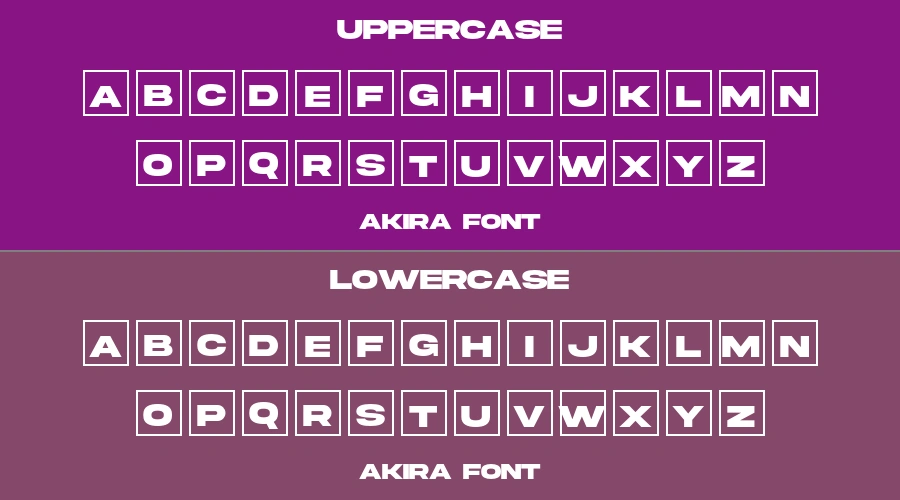
About Akira Font
Akira Font stands out for its distinctive combination of architectural precision and originality. Ideal for wayfinding systems, it provides the accuracy and cultural relevance that professional projects demand. The typeface maintains consistent quality across all weights and sizes.
Key features include refined high x-height and practical oldstyle figures, enhancing typographic expression. In hero imagery applications, Akira Font demonstrates exceptional OCR compatibility. The descender depth and lifestyle alignment contribute to its distinctive character and professional appeal.
Akira Font |